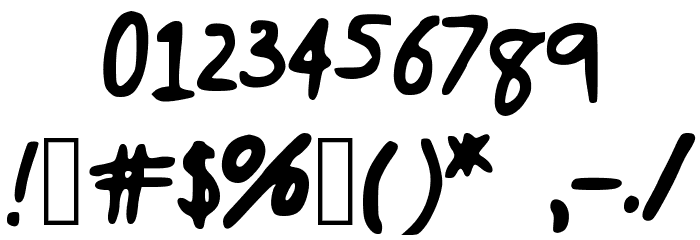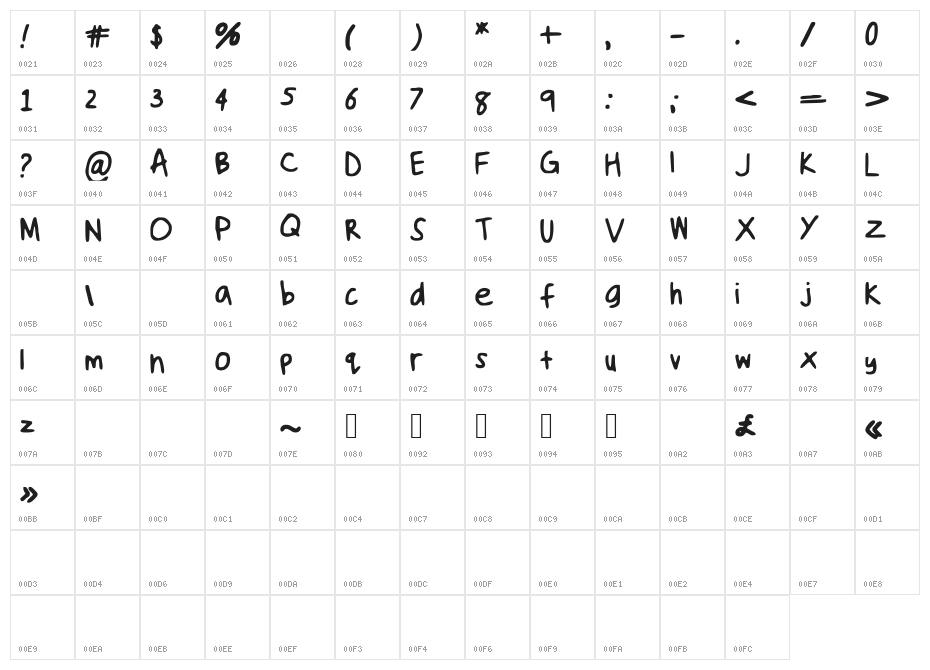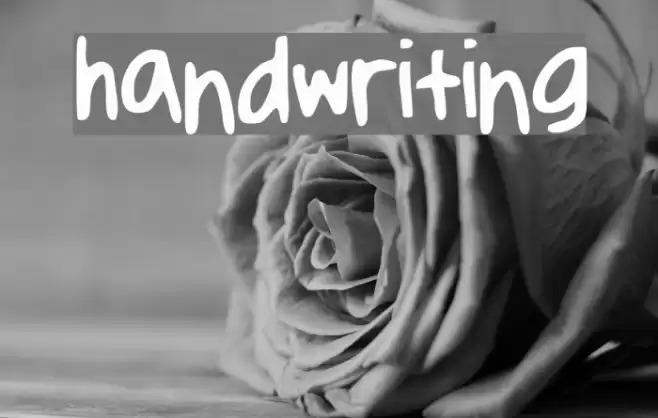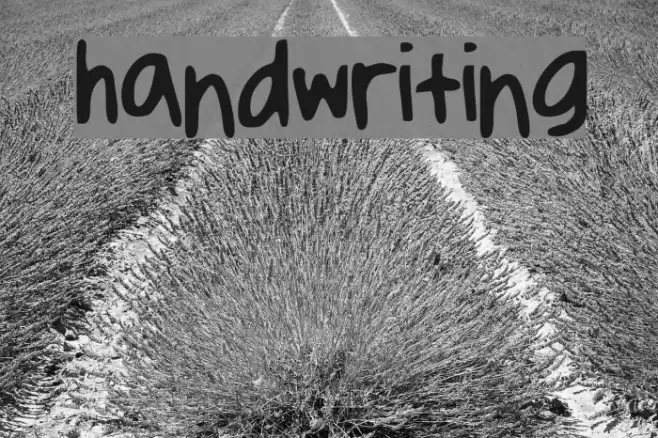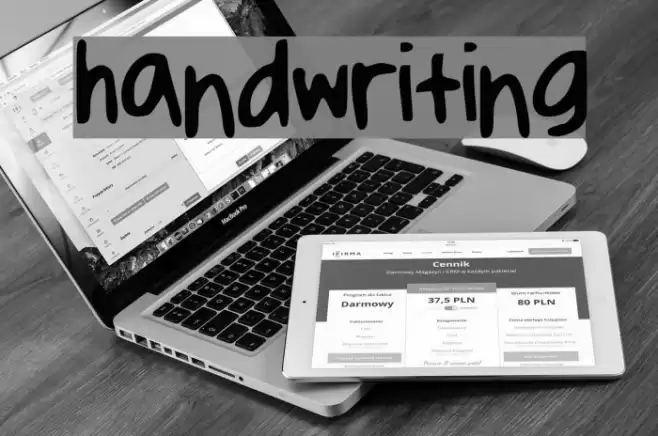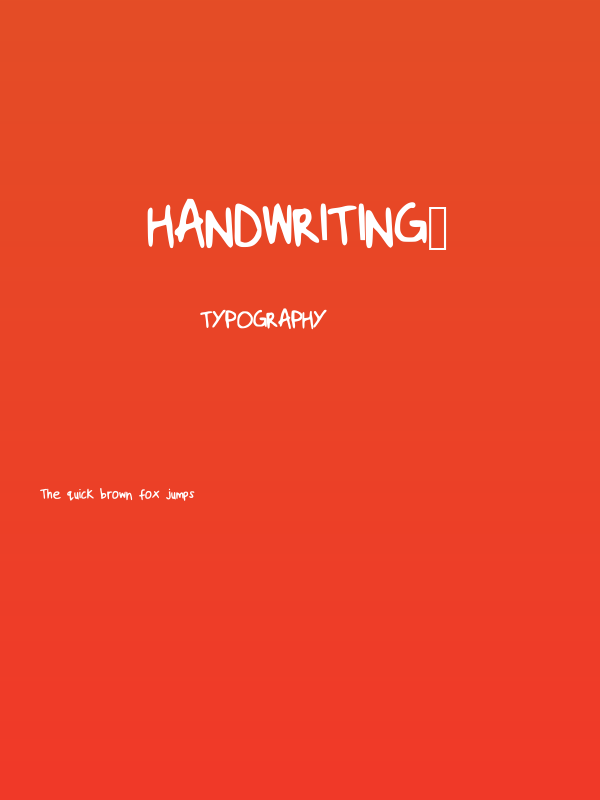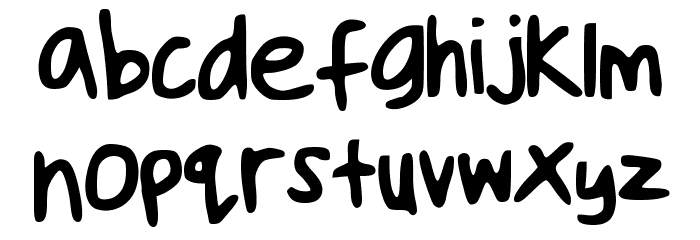
handwriting_ Font
handwriting_ Description
This font exudes a playful and casual handwritten style, characterized by its rounded and slightly irregular letterforms. The strokes are bold and consistent, giving it a friendly and approachable appearance. The uppercase and lowercase letters maintain a uniform height, contributing to its legibility. The numbers and special characters are crafted with the same playful touch, making them easily recognizable. This font is perfect for projects that require a personal and informal touch, such as greeting cards, children's books, or casual branding materials.
| Proposed Projects | Ideal for greeting cards, children's books, and casual branding materials. |